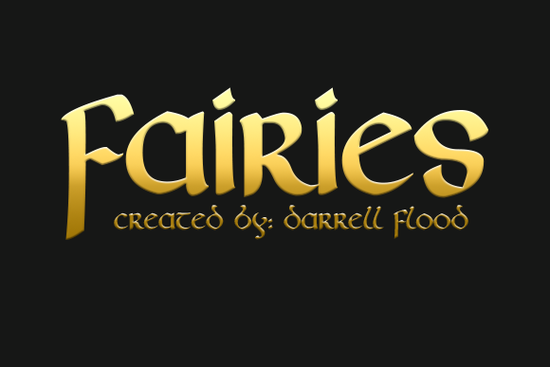
If you’ve been searching for a font that feels both ancient and elegant, the Fairies Font might be exactly what your next project needs. Designed by Darrell Flood, this Celtic-inspired typeface pulls from the ornate letterforms found in the Book of Kells think swirling lines, delicate curves, and a touch of magic. It’s not just decorative; it’s deeply rooted in historical artistry, making it perfect for designers who want to add soul to their work without sacrificing readability.
What kinds of projects work best with this font?
Fairies Font shines when used in contexts that call for grace, tradition, or a hint of fantasy. Here are some real-world uses we’ve seen from fellow creators:
- Wedding stationery Pair it with a clean sans-serif like one from our minimalist script fonts collection to balance elegance and clarity.
- Book covers or chapter headers Especially for fantasy, folklore, or Celtic history genres.
- Print-on-demand products Think mugs, journals, or wall art with quotes about nature, magic, or heritage.
- Small business logos For boutiques, tea shops, or holistic wellness brands wanting to convey warmth and timelessness.
One thing to note: while Fairies Font has personality, it’s not overly busy. That makes it more versatile than many ornamental scripts. You can scale it down for subtle accents or blow it up for dramatic titles without losing its charm.
How does it compare to other script fonts?
If you’ve browsed Creative Fabrica’s script section before, you’ve probably come across favorites like Bubble Font for playful vibes, or Belinda Script for modern romance. Fairies Font sits in a different lane less bubbly, less contemporary, more rooted in illuminated manuscript tradition.
It pairs especially well with:
- Beloved Script for layered quotes or dual-font designs where you need contrast without clash.
- Sunset Brush if you’re going for an earthy, hand-painted feel alongside Celtic elegance.
And if you’re building a font library for client work, consider grabbing Bubble Font too having both whimsical and solemn scripts gives you flexibility depending on the brand voice.
Any tips for using Fairies Font effectively?
A few practical suggestions from designers who’ve used it successfully:
- Use generous spacing. The flourishes need room to breathe tight kerning can make letters feel crowded.
- Stick to uppercase for display use. The capital letters carry the most character; lowercase is readable but less ornate.
- Avoid tiny sizes. Below 18pt, details start to blur save it for headlines, not body text.
- Try gold foil or embossed effects. In print or mockups, metallic treatments highlight the intricate linework beautifully.
Also worth noting: Fairies Font includes basic punctuation and numerals, so you’re not limited to letters only. Dates, prices, or short phrases still look cohesive.
Where can I learn more about the Book of Kells inspiration?
If you’re curious about the original artwork that influenced this font, Trinity College Dublin has put together a detailed online exhibit showing high-res scans of the manuscript. It’s fascinating to see how Darrell Flood translated those medieval forms into a functional digital font without losing their spirit.
Understanding the source material can also help you market your own designs. Customers love stories telling them your invitation suite or logo “draws from 9th-century Irish scribes” adds depth they won’t find in generic templates.
- ✅ Confirm your project calls for elegance, not playfulness
- ✅ Check that you have space to let the letterforms shine (not crammed layouts)
- ✅ Consider pairing it with a simpler companion font maybe from this minimalist set
- ✅ Preview it at your intended size to ensure legibility